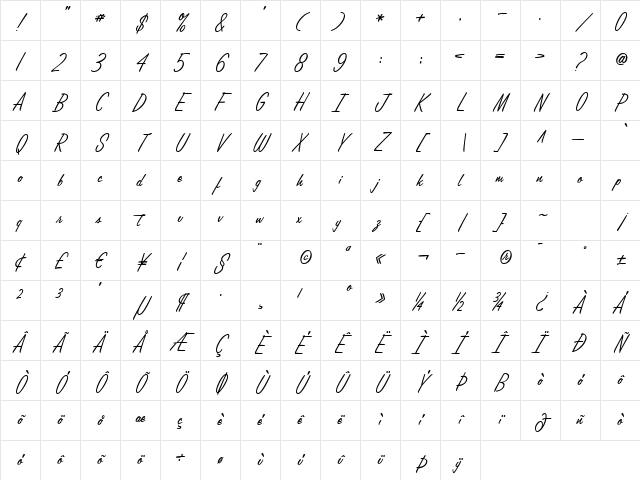
Lamplighter Script Regular Free Font
Lamplighter Script Regular
Design Context for Lamplighter Script
Lamplighter Script flows with the natural rhythm of handwritten lettering, making it ideal for designs that call for warmth and personal expression. Its slender proportions lend an understated elegance to any composition.
Font Pairing: Combine Lamplighter Script with a simple geometric sans for maximum contrast - the tension between flowing curves and clean structure is a classic typographic pairing.
Pro Tip: Use Lamplighter Script for short runs of text - names, titles, or taglines. Extended body copy in script faces tires the eye quickly.